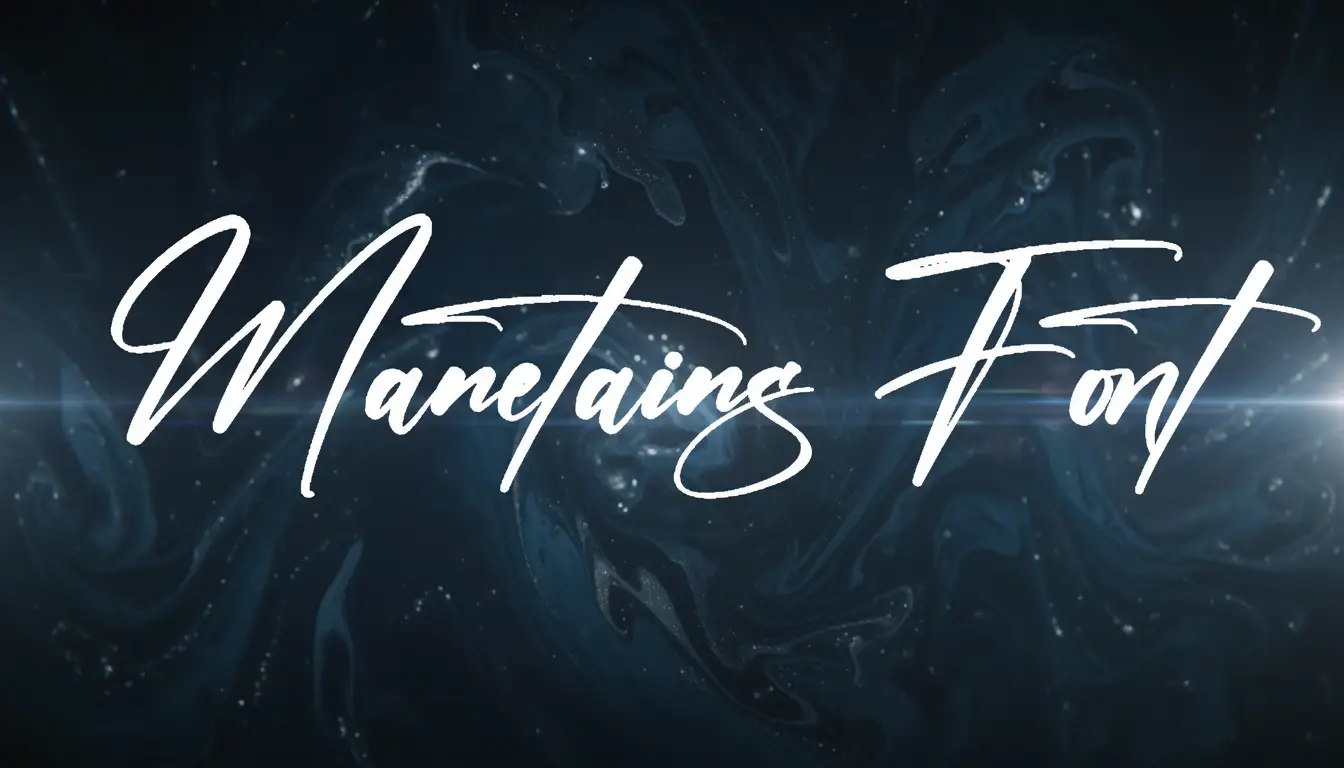
Manetains Font
What You Can Type With Manetains
Manetains covers the full alphabet in upper and lowercase, plus all ten numbers, so you can set names, dates and prices without switching fonts. Everyday marks like &, !, ? and @ are there too. Thanks to its accented letters, it also works for Spanish, French, German, Portuguese and Italian, not just English.
Where Manetains Works Best
Manetains is a natural fit for wedding invitations, logos and signature-style headings. Script fonts read best in short bursts, so keep it to names, titles and one-line quotes. Skip all caps: script capitals are drawn to start a word, not to fill one.
Does Manetains support accented letters?
Yes. Manetains includes the accented letters needed for Spanish, French, German, Portuguese and Italian, so it works for more than just English.